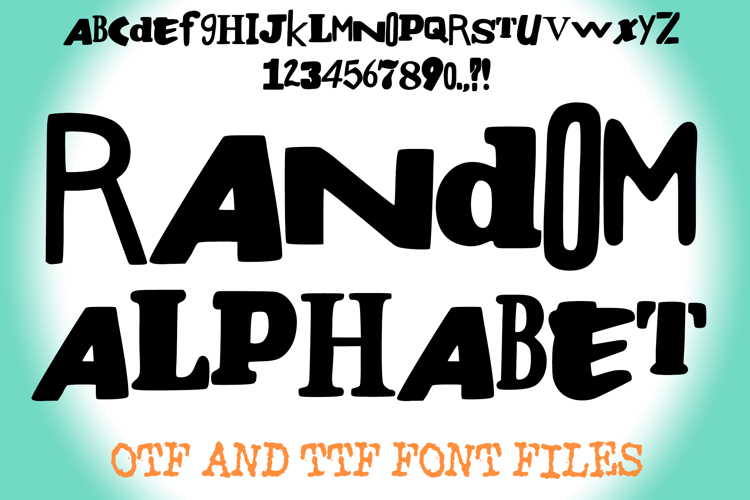
Random Alphabet Ransom Note Letters ABC Text Font Hand Drawn
Unleash the unexpected with the Random Alphabet Font! This truly unique display typeface offers an arresting, hand-drawn aesthetic where no two characters quite match. Featuring a chaotic mix of irregular serifs, playful sans-serif curves, and inconsistent baselines, this font immediately conveys a sense of urgency, mystery, or raw artistic energy, mimicking the look of notes assembled from cut-out, random letters.
This font is perfect for projects that demand a grunge, rebellious, or quirky DIY look. It's an excellent choice for album art, video game titles, protest posters, unique brand logos, or any design needing a bold, chaotic statement. The clear, thick outline makes it ideal for cutting vinyl on machines like Cricut and Silhouette.